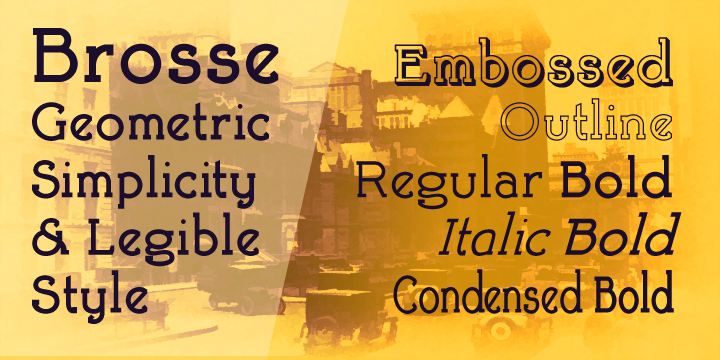
Brosse
Designed by: Paul James Lloyd
Brosse
Brosse is a family of slabserif faces which emphasise clarity and geometric cleanliness of line, in a 'Brave New @World' sprit that harks back to the 1930s and possibly also to postwar rebuilding in the 1950s.
Its clear legibility makes it ideal for poster work and titles, as well as for signage of any kind. Eight faces are offered, regular and italic, bold and bold italic, as well as a condensed face and a bold weight thereof. There are also two decorative forms- outline and embossed faces.